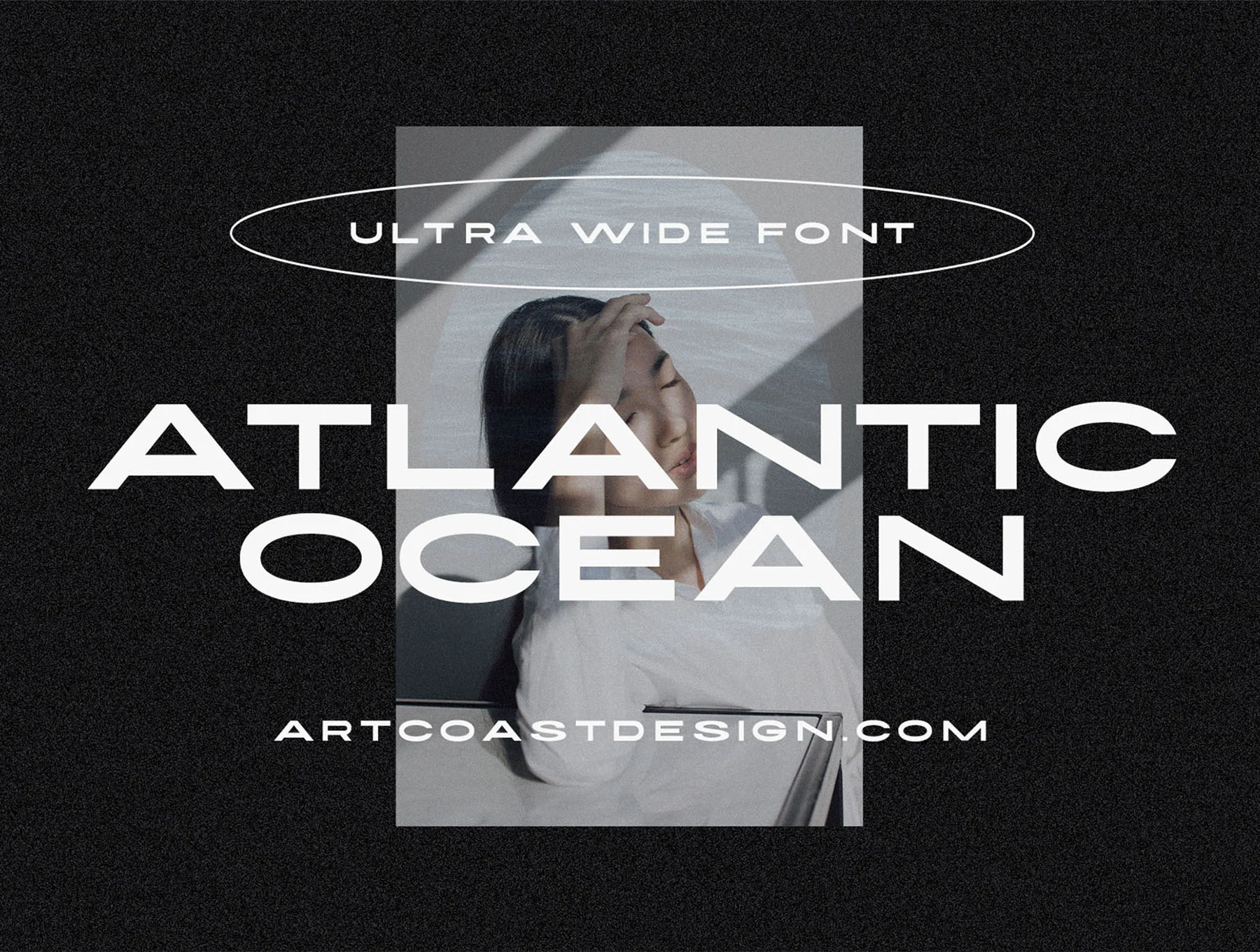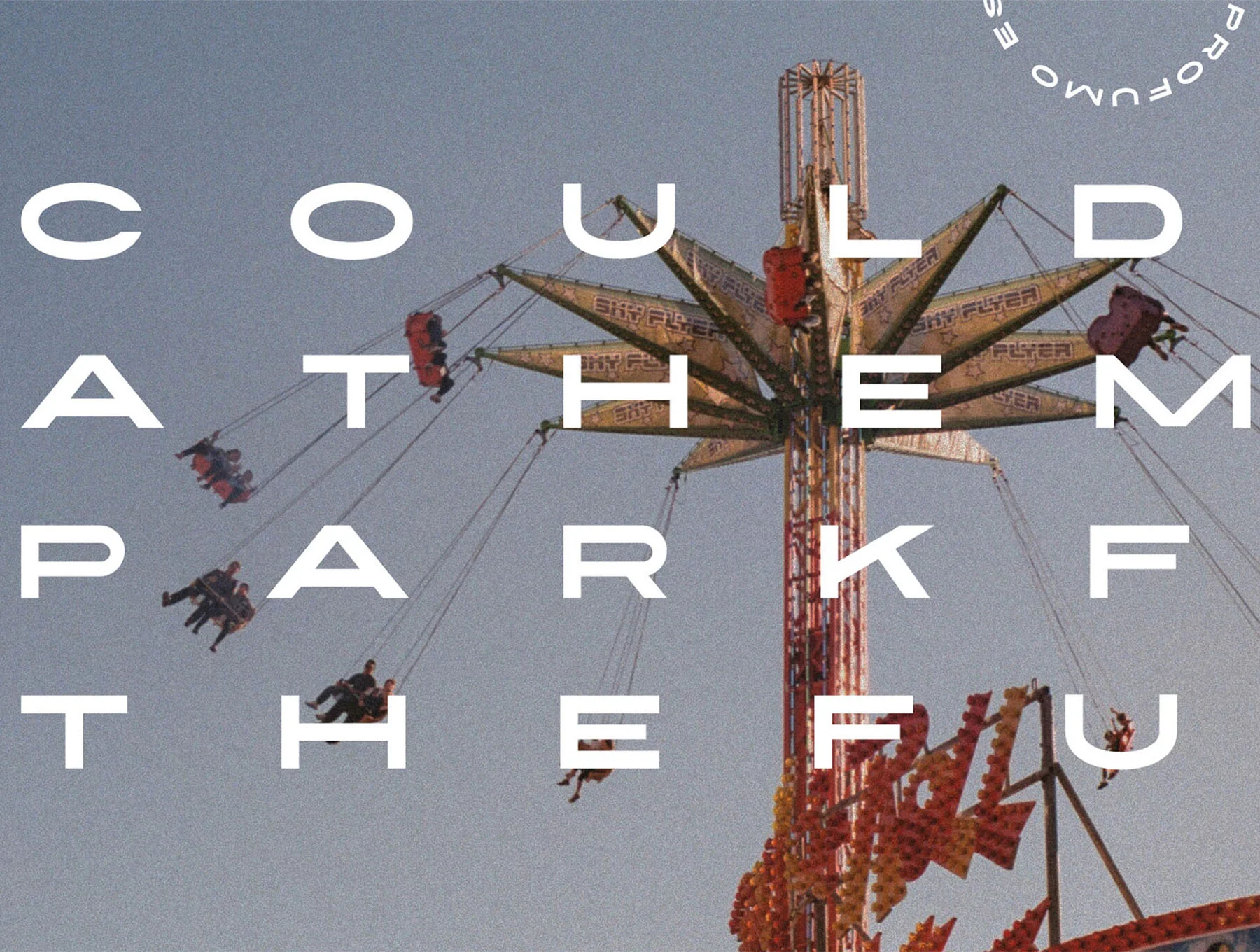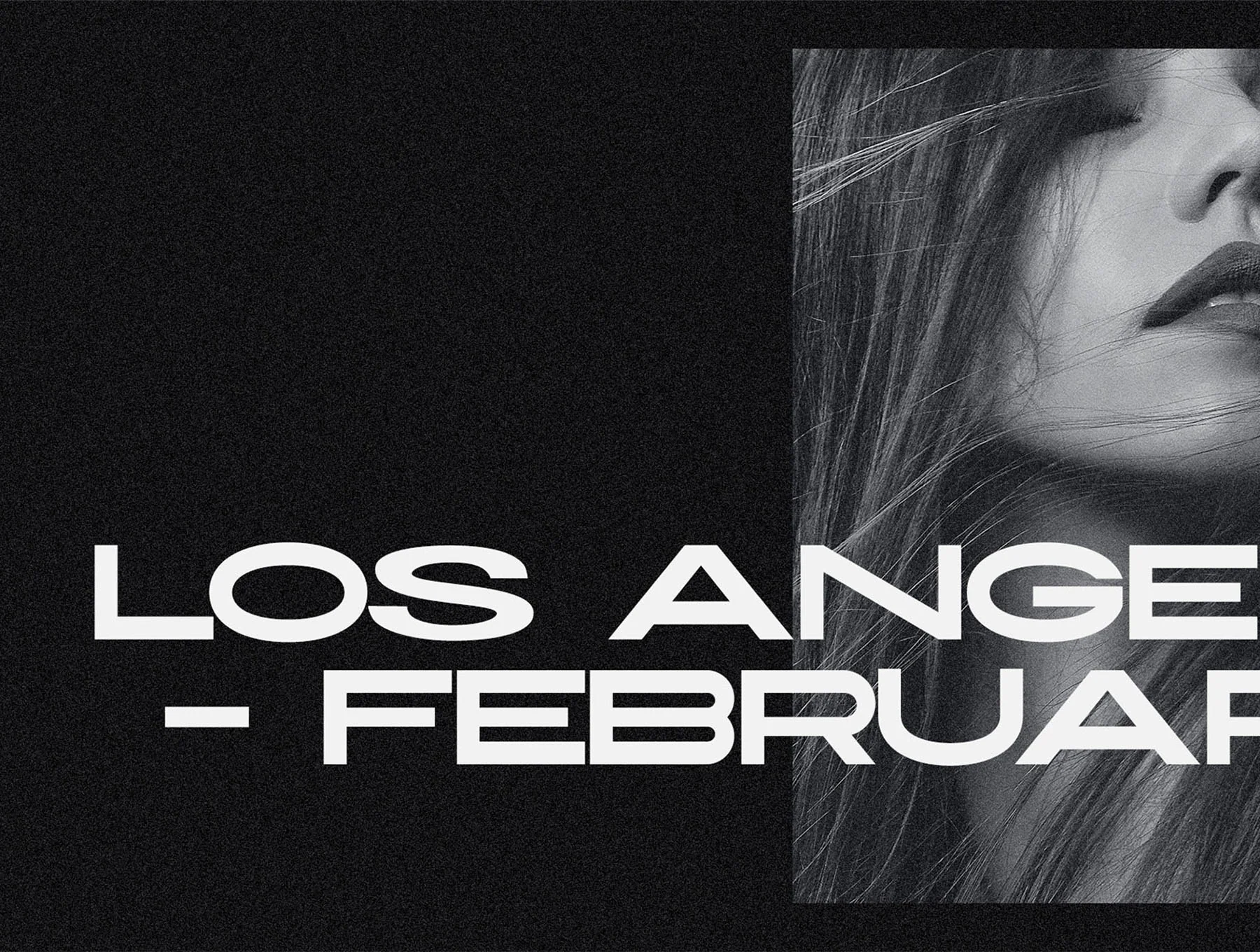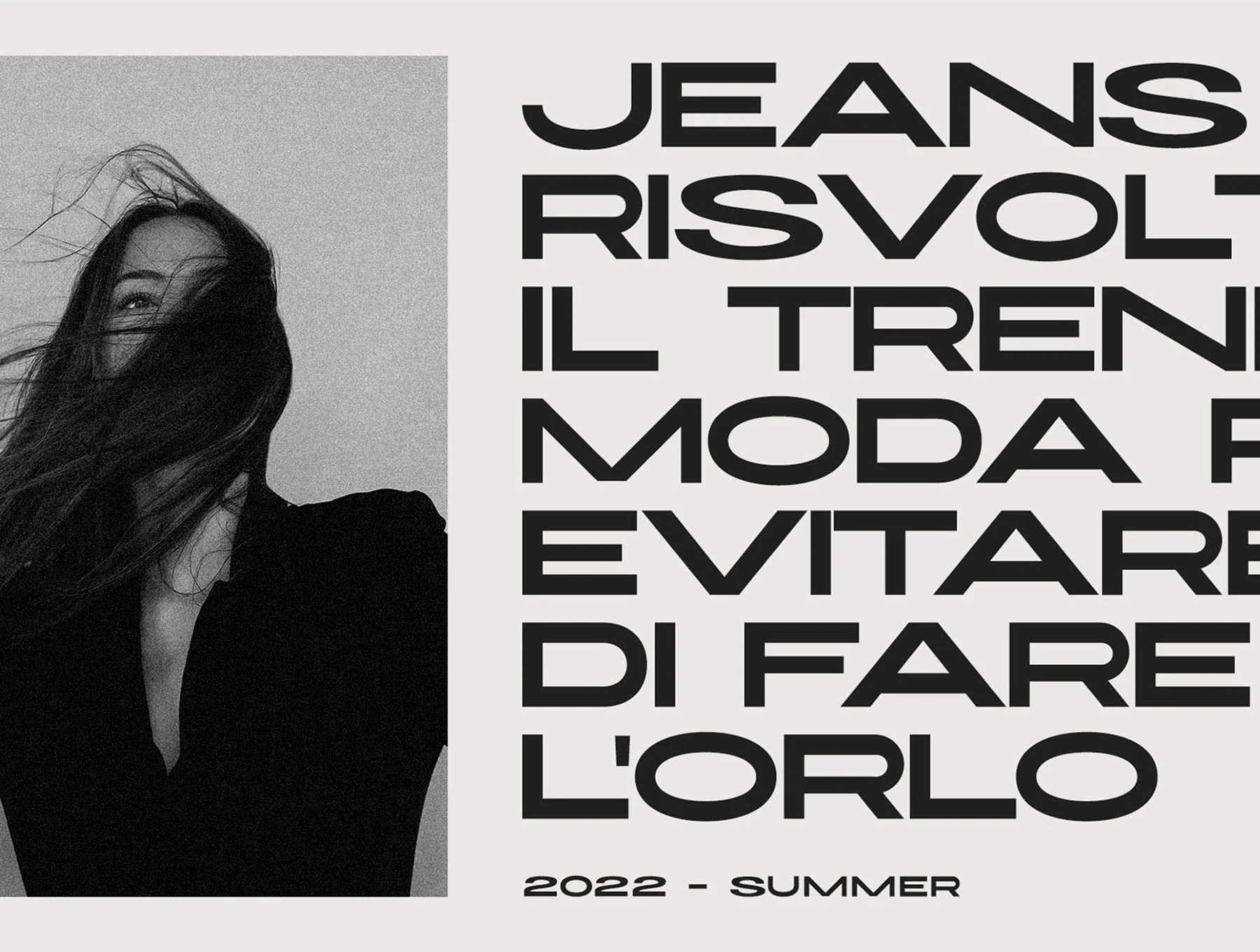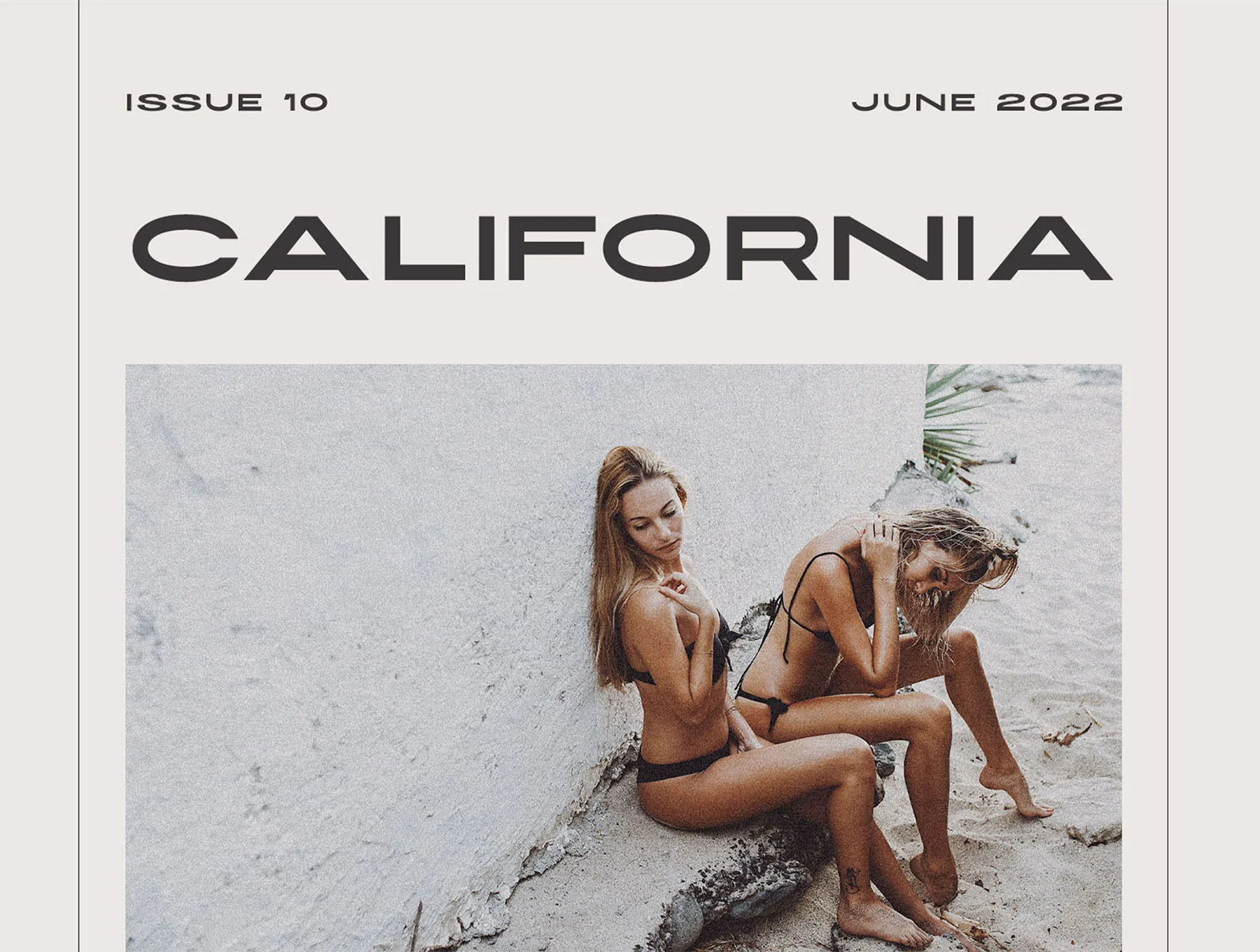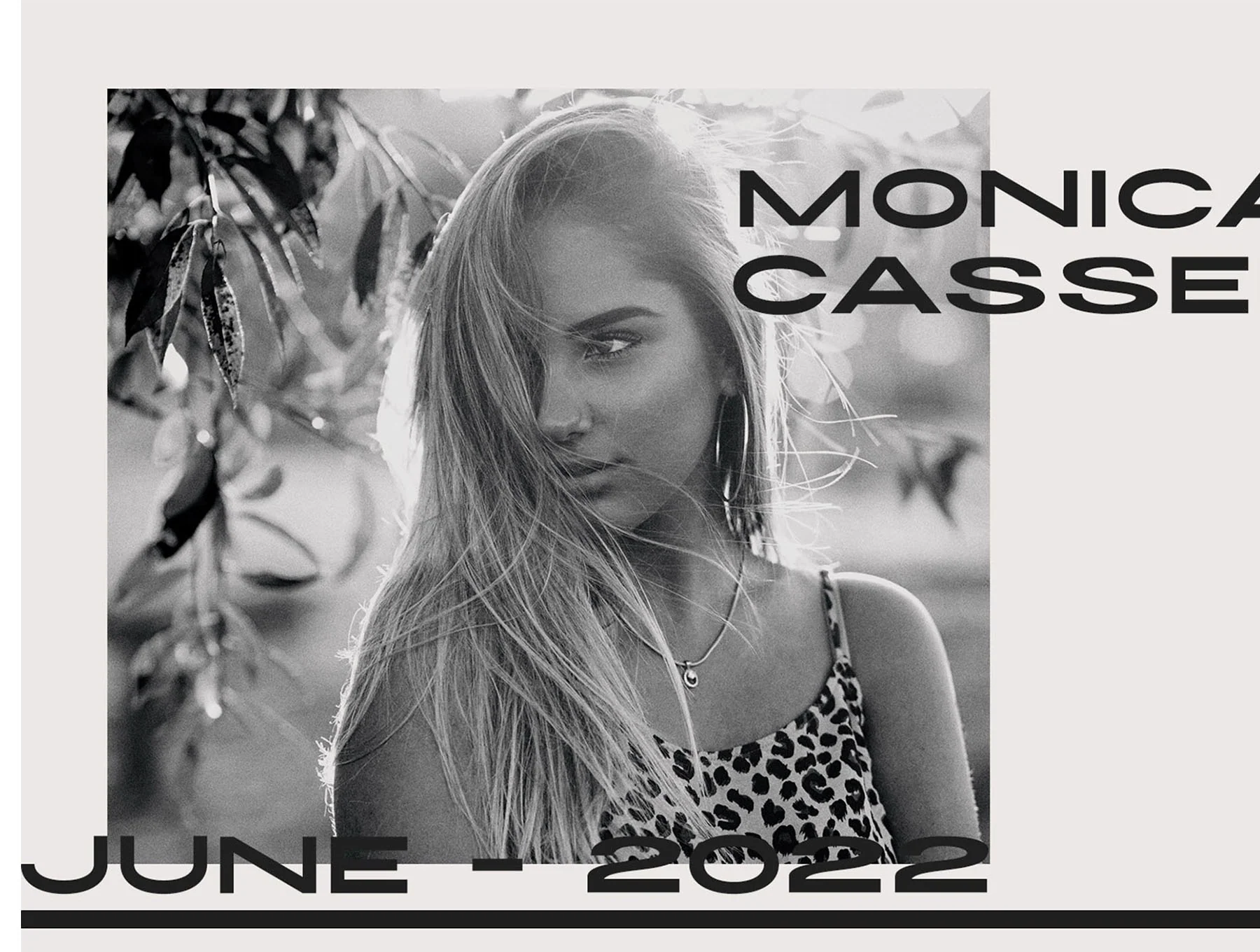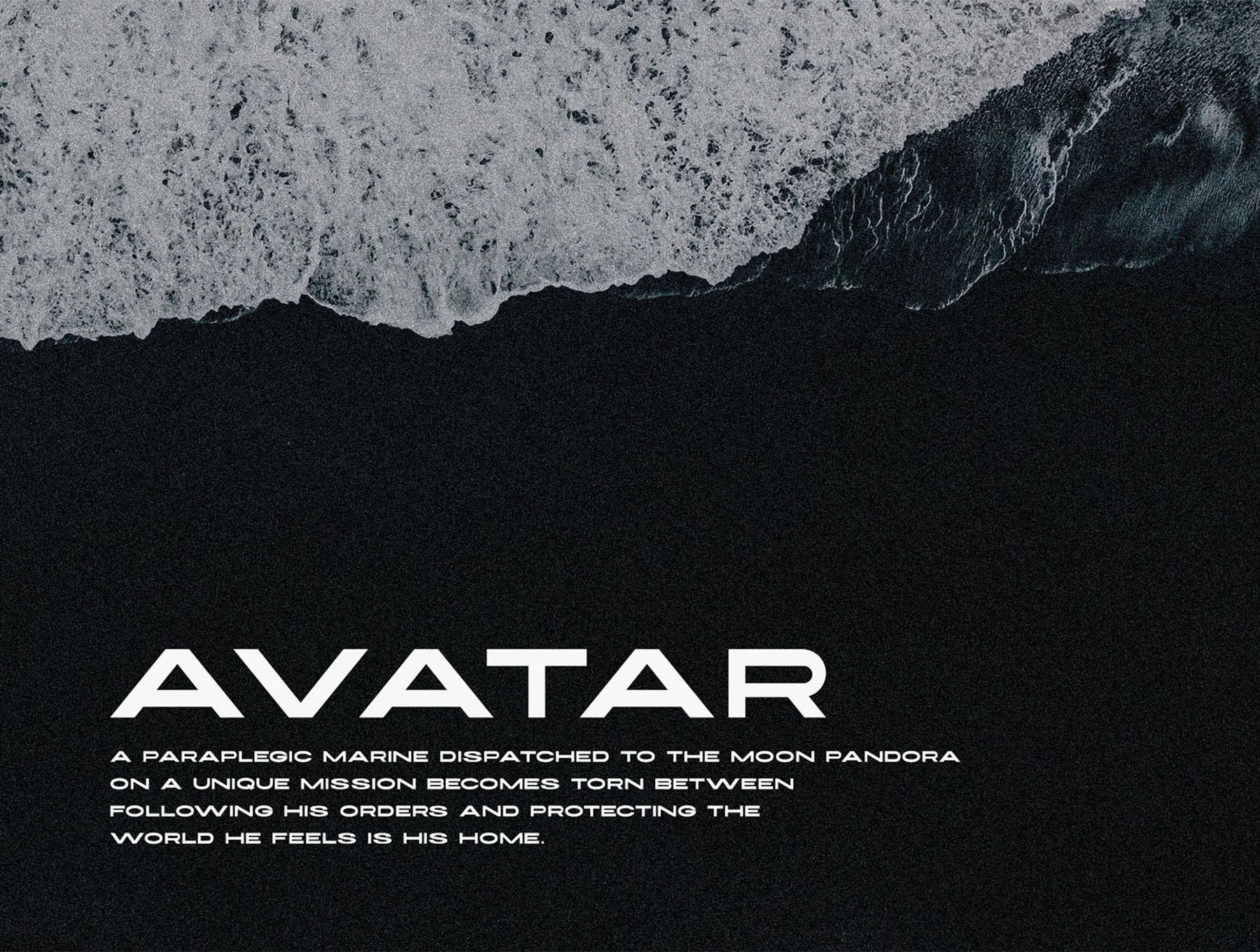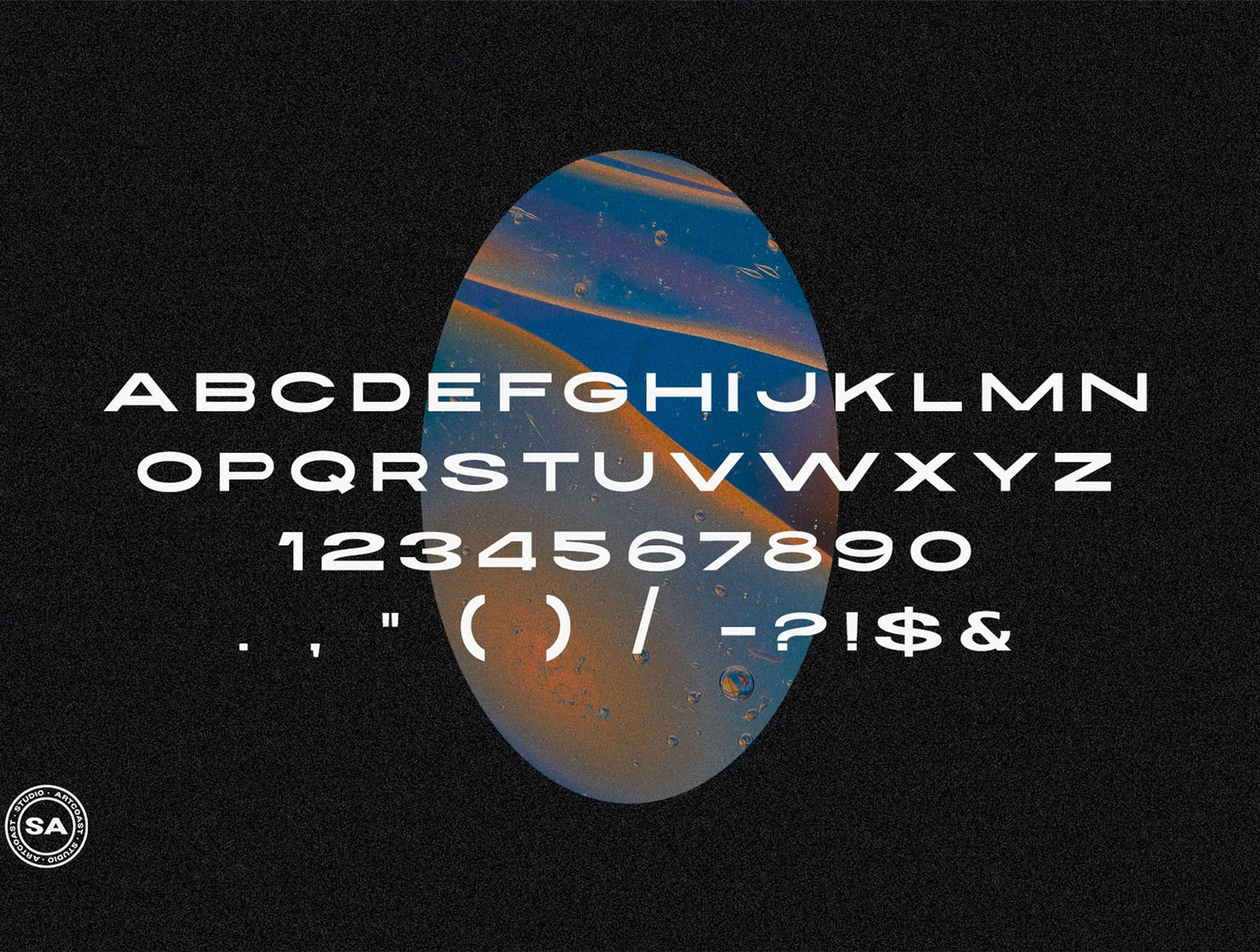
Atlantic Ocean
Extra Wide Typeface
Uppercase lettering
Numerals
Punctuation marks
SA Atlantic Ocean is a fresh, timeless wide sans serif typeface with a casual feel. It suits fashion projects, magazines, logos, branding, photography, invitations, wedding stationery, quotes, blog headers, posters, ads, postcards, books, websites, and more.